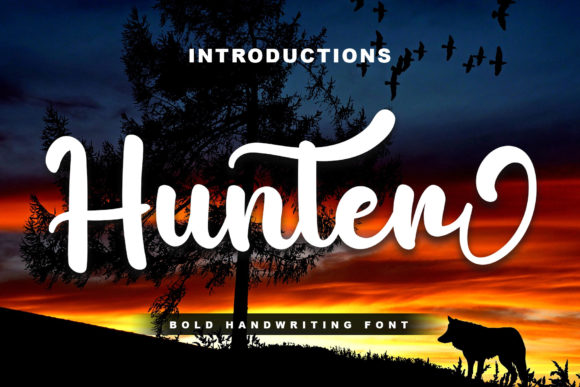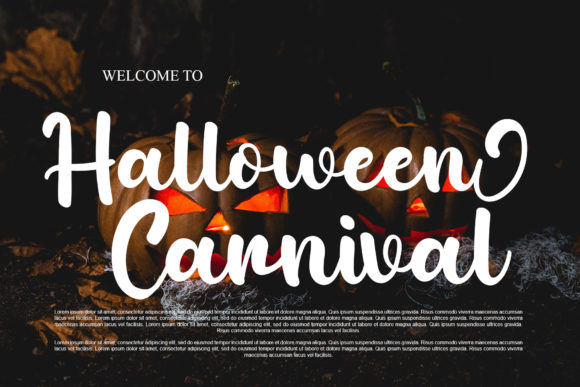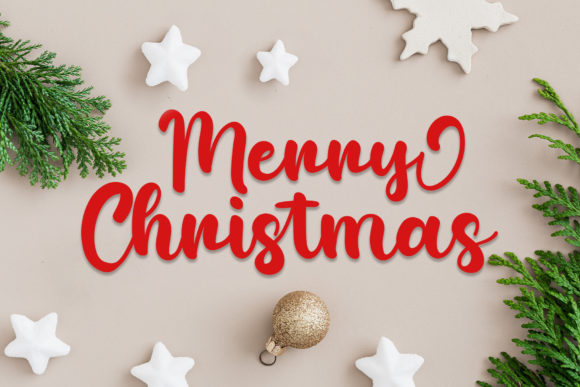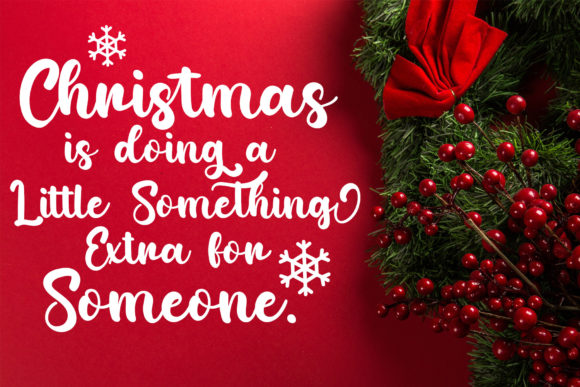
About Hunter Font
Hunter is an exquisite handwritten font, masterfully designed to become a true favorite. It maintains its classy calligraphic influences while feeling contemporary and fresh. This font is PUA encoded which means you can access all of the amazing glyphs and ligatures with ease!